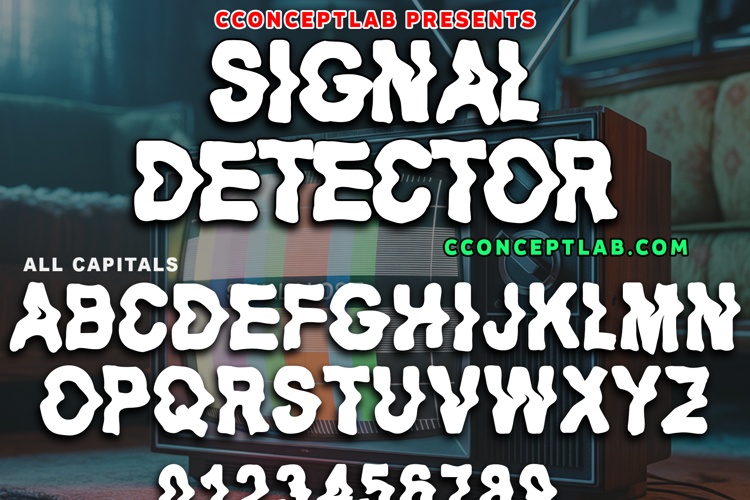
SIGNAL DETECTOR Font
SIGNAL DETECTOR
- Distorted display bold font perfect on your projects, posters, covers, etc.
- Blackletter theme font for branding, marketing, website, mobile app etc.